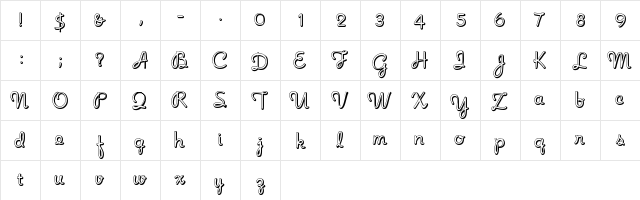
NoodleShaded Regular
Design Context for NoodleShaded Typeface
NoodleShaded is a composed and adaptable typeface that performs quietly and consistently across a wide range of design contexts.